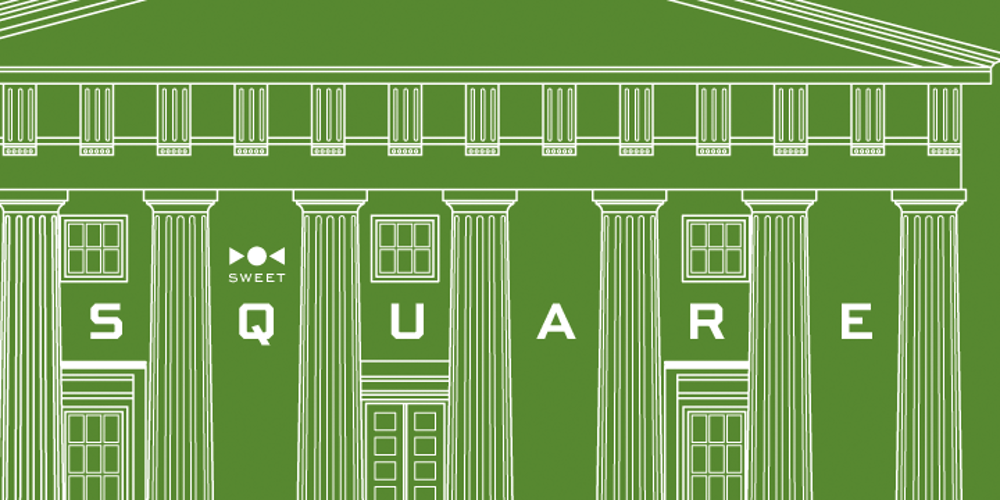
Sweet Square
Sweet Square font
Sweet Square Font Family was designed by Mark van Bronkhorst and published by Sweet. Sweet Square contains 24 styles and family package options. The Engraver’s Square Gothic—like its rounder cousin, the engraver’s sans serif, Sweet® Sans,has been one of the more widely used stationer’s lettering styles since about 1900. Its minimal forms, made without curves, were popularized long ago by bankers and others seeking a serious, established feel to their stationery. One might argue that the design is a possible precursor to Morris Fuller Benton’s Bank Gothic® typeface. Sweet® Square is based on antique engraver’s lettering templates called “masterplates.” Professional stationers use a pantograph to manually transfer letters from these masterplates to a piece of copper or steel that is then etched to serve as a plate or die. This demanding technique is rare today given that most engravers now use a photographic process to make plates, where just about any font will do. But the lettering styles engravers popularized during the first half of the twentieth century remain both familiar and appealing. Referencing various masterplates, Mark van Bronkhorst has drawn Sweet Square in nine weights. The sources offered just uppercase, small caps, and figures, yet similar, condensed examples had a lowercase, making it possible to interpret a full character set for Sweet Square. Italics were also added to give the family greater versatility. The fonts are available as basic, “Standard” character sets, and as “Pro” character sets offering special characters, a variety of typographic features, and full support for Western and Central European languages. Sweet Square gives new life to an uncommon class of typeface: an early twentieth-century commercial invention that brings a singular verve to modern design. Its unique style is as useful as it is novel. Bank Gothic is a registered trademark of Grosse Pointe Group LLC.